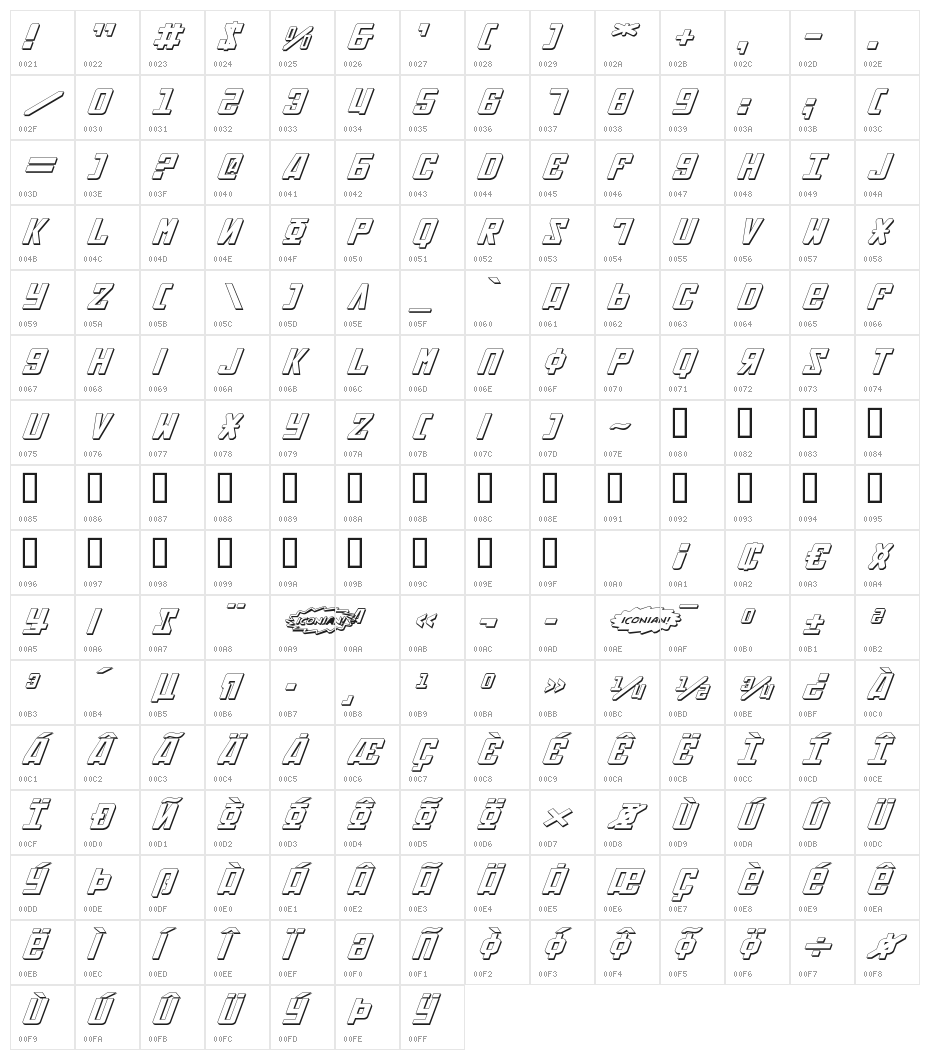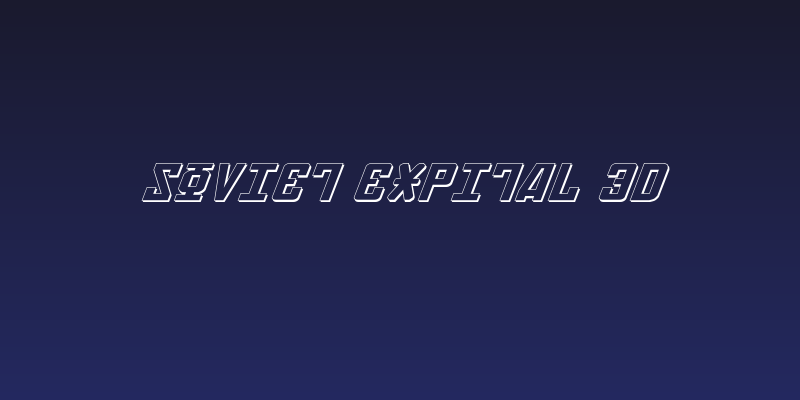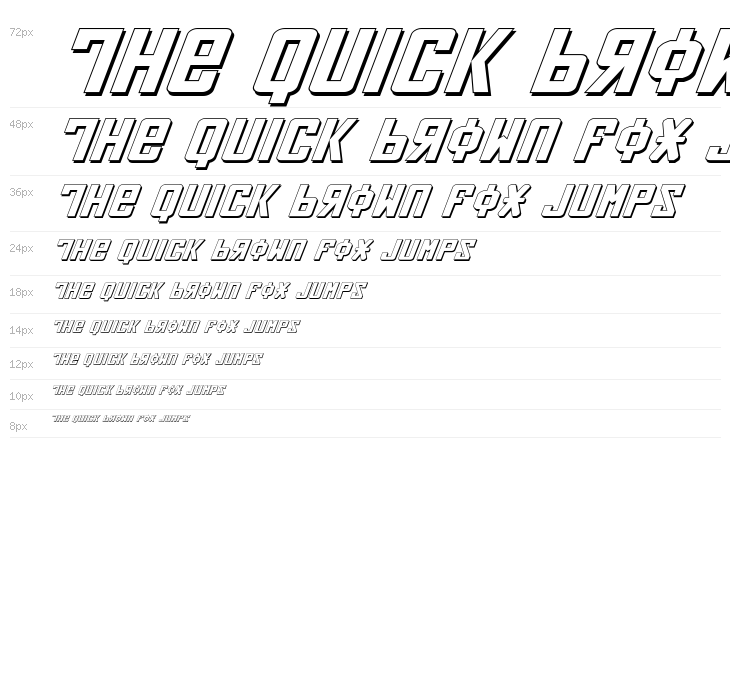
Soviet ExpItal 3D Font
Soviet ExpItal 3D Description
This font features a bold, three-dimensional design with a distinct italic slant, giving it a dynamic and futuristic appearance. The characters are outlined, creating a hollow effect that enhances the 3D illusion. Each letter is crafted with sharp angles and clean lines, contributing to a modern and industrial aesthetic. The uppercase and lowercase letters maintain a consistent style, while the numerals and special characters complement the overall design. This font's unique structure makes it stand out, ideal for projects that require a strong visual impact.